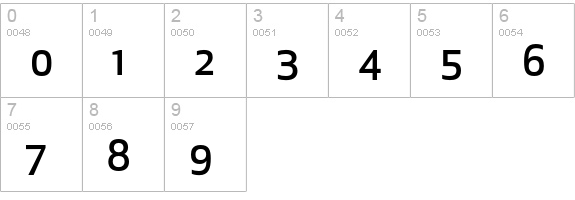
ApexNew-Medium is a balanced, medium-weight variant in the ApexNew typeface family \xE2\x80\x94 well suited to sub-headlines, navigation, and balanced editorial work.
Introducing ApexNew-Medium, a versatile and modern font that exudes sophistication and style. With its clean lines and balanced proportions, ApexNew-Medium is the perfect choice for a wide range of design projects, from branding and packaging to editorial and web design. This sleek and elegant font is ideal for creating eye-catching headlines, signage, and logos that demand attention. Its medium weight strikes the perfect balance between being bold and readable, making it suitable for both print and digital applications. Whether you're designing a sleek corporate identity or crafting a stylish poster, ApexNew-Medium is sure to elevate your work to the next level. And the best part? This exceptional font is available for free download at FontsMarket.com, so you can start using it in your projects right away. Don't miss out on this opportunity to add a touch of sophistication to your designs with ApexNew-Medium.